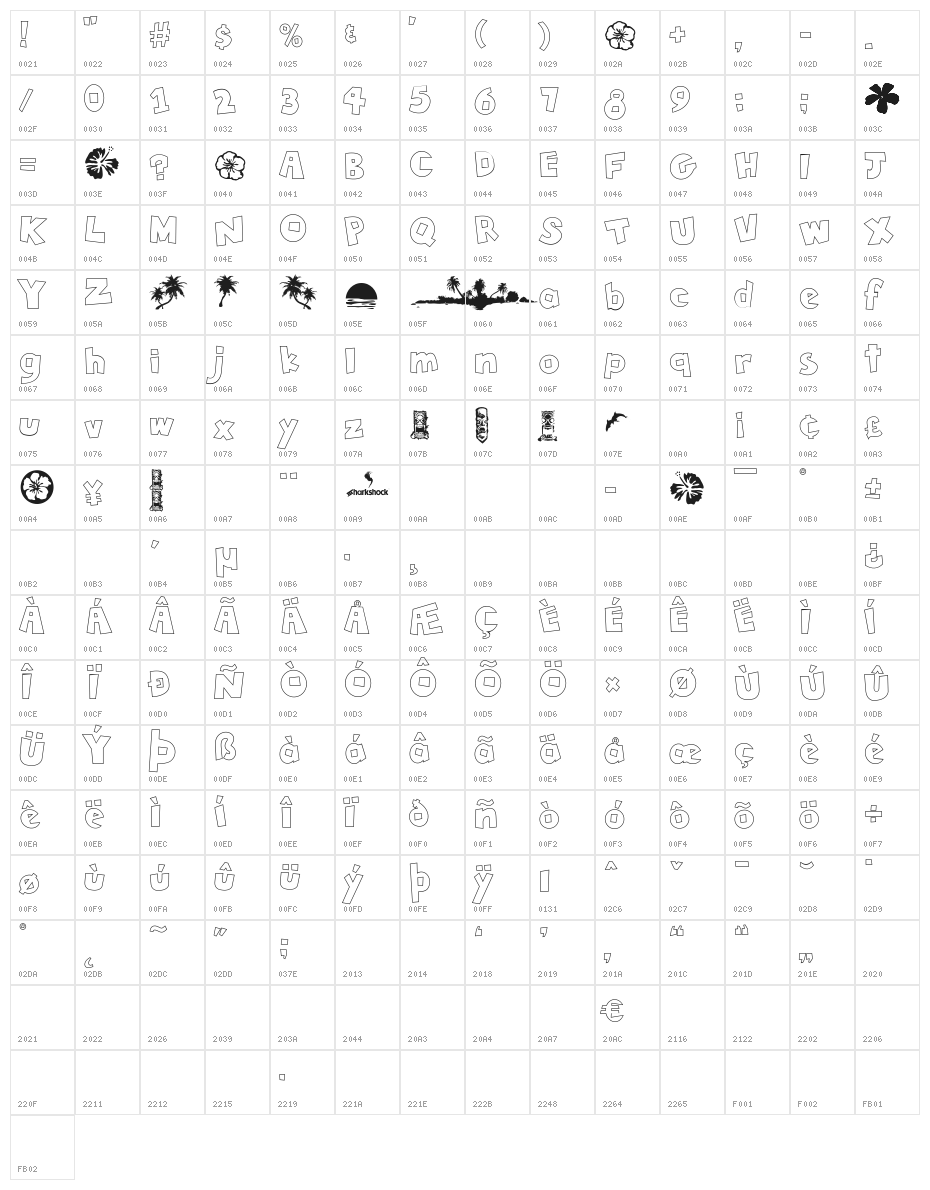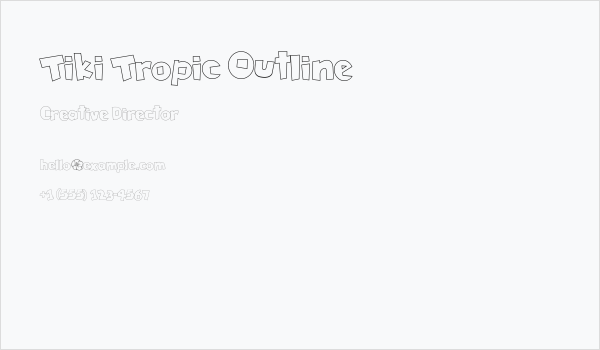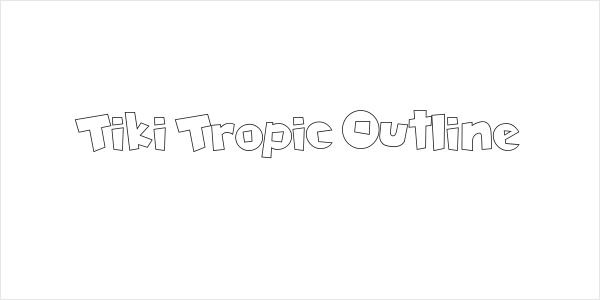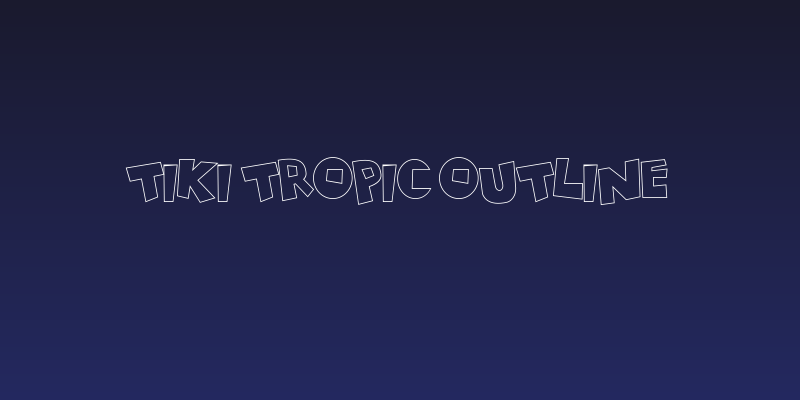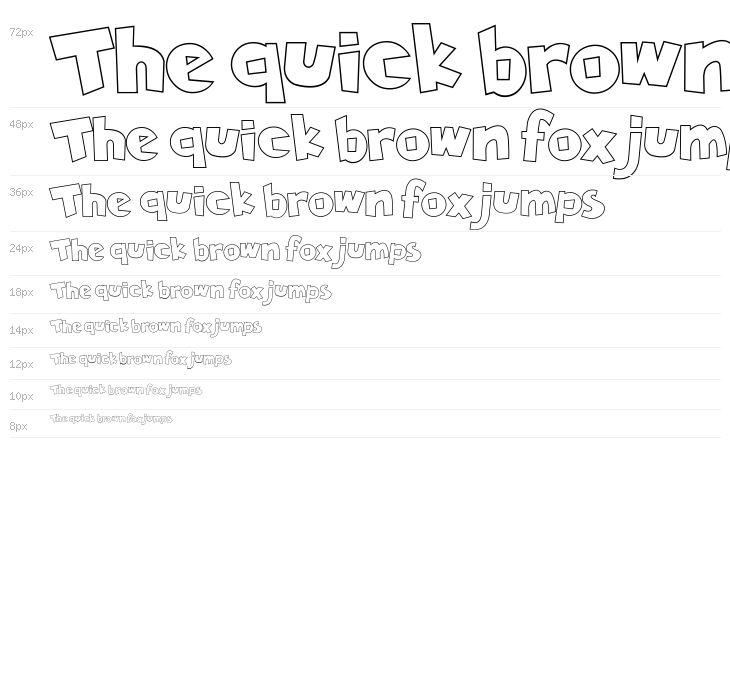
Tiki Tropic Outline Font
Tiki Tropic Outline Description
This playful and bold font features an outline style that gives it a lively and dynamic appearance. The characters are designed with exaggerated, uneven strokes that create a sense of movement and fun. The uppercase and lowercase letters maintain a consistent style, with rounded edges and a slightly irregular shape, adding to the whimsical feel. The numbers and special characters follow the same design principles, ensuring a cohesive look across all elements. This font's unique outline design makes it stand out, perfect for projects that require a touch of creativity and flair.